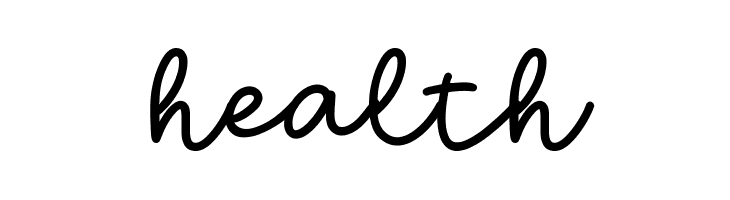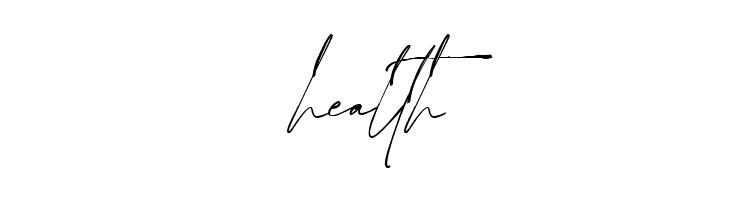
A playful, handwritten font with fluid, connected letterforms and a casual style.
An elegant script font with flowing, interconnected letters and graceful flourishes.
A lively, expressive handwritten font with dynamic strokes and playful characters.
A casual, elegant handwritten font with fluid, connected letters.
A dynamic, handwritten script font with bold, expressive strokes.
A bold, angular font with a modern, geometric style.
A lively, elegant script font with fluid, cursive strokes and a handwritten feel.
A bold, playful font with a hand-drawn, marker-like style.
A playful font with decorative uppercase and bold lowercase letters.
A bold, rounded serif font with a vintage yet modern appeal.